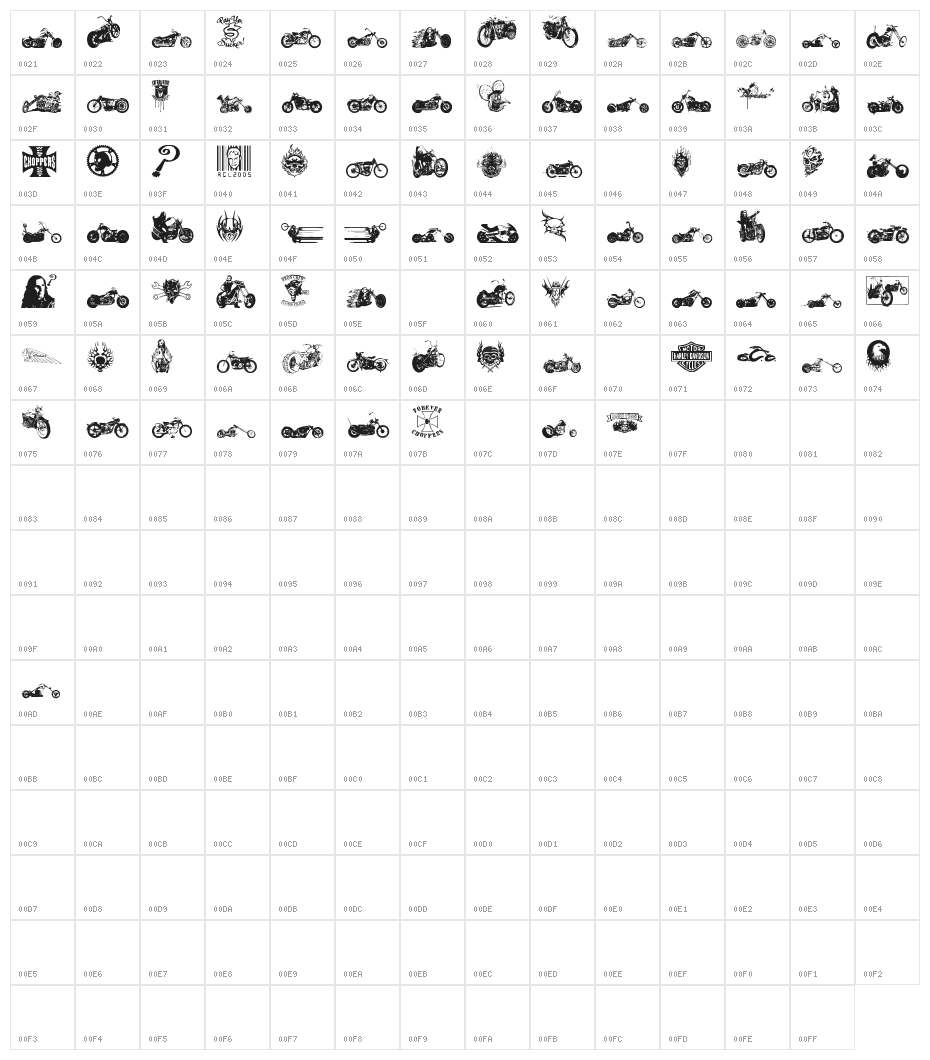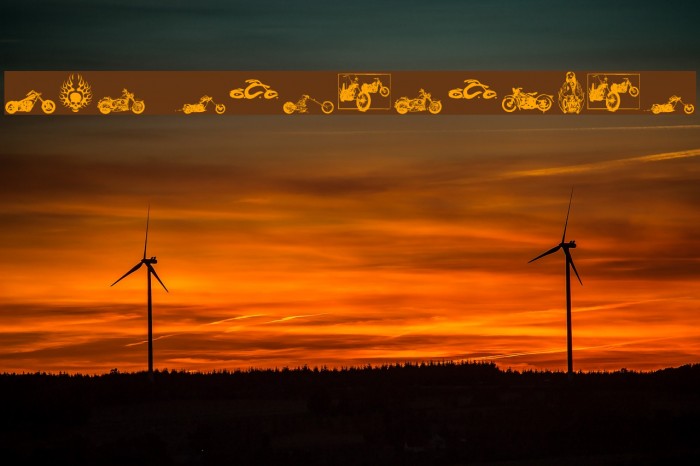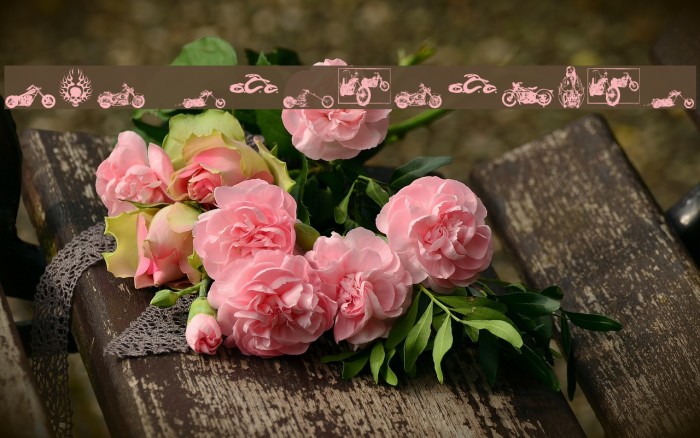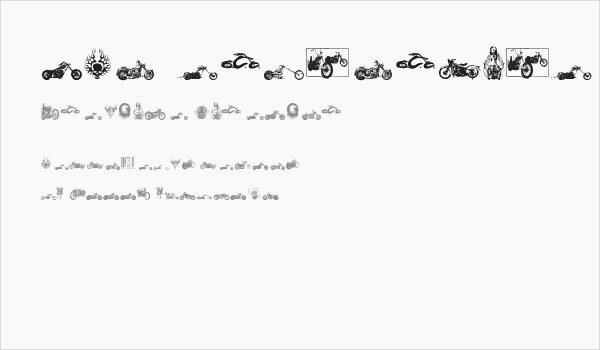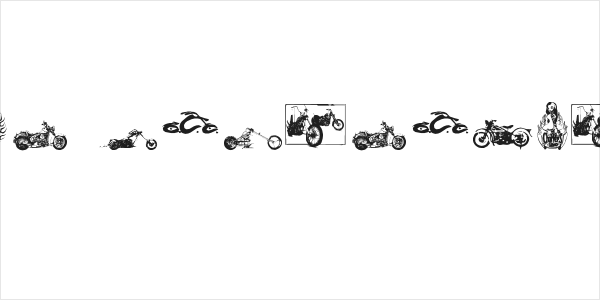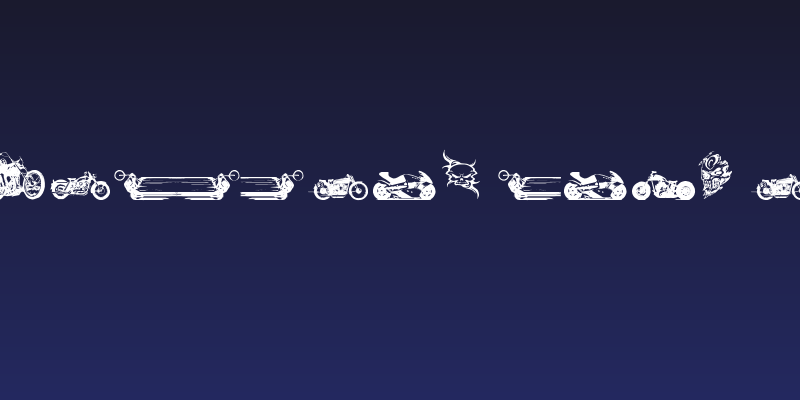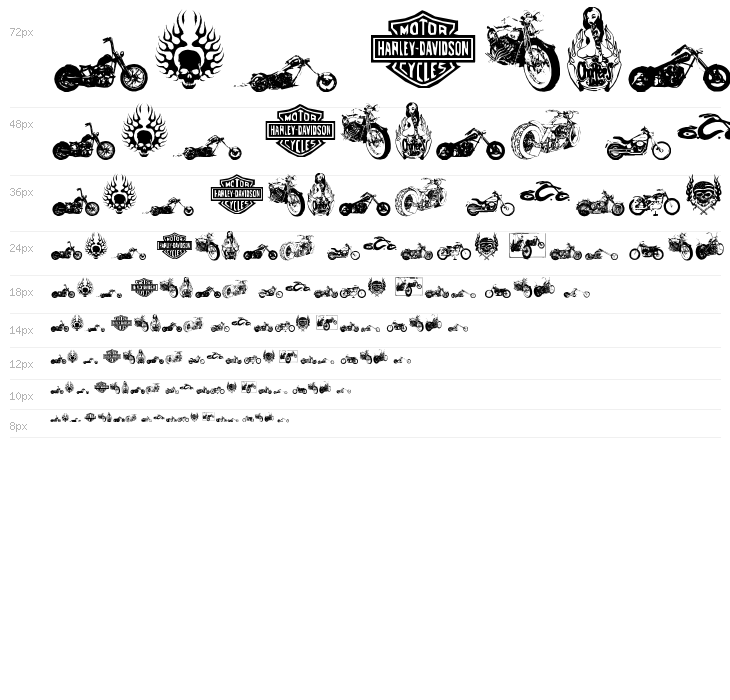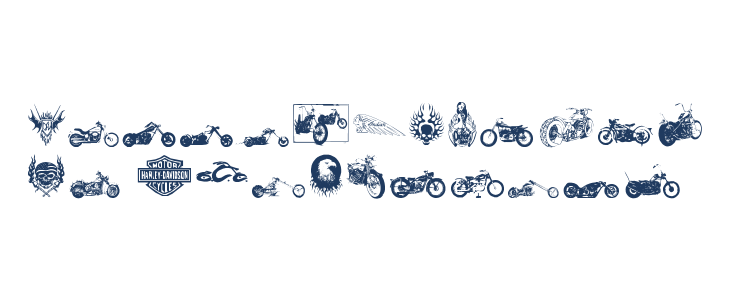
choppersforlife Font
choppersforlife Description
A highly decorative and illustrative font composed of detailed motorcycle and biker-themed graphics for each character, featuring choppers, skulls, flames, and related iconography. Each glyph is a unique, complex illustration rather than a traditional letterform, making it more of a pictorial or dingbat font.
| Overall Style | Decorative, Thematic, Illustrative |
| Use Case | Logos, Headlines, Themed graphics, Event materials |
| Proposed Projects | Posters, event flyers, custom apparel, motorcycle club branding, themed party invitations, decorative headings. |